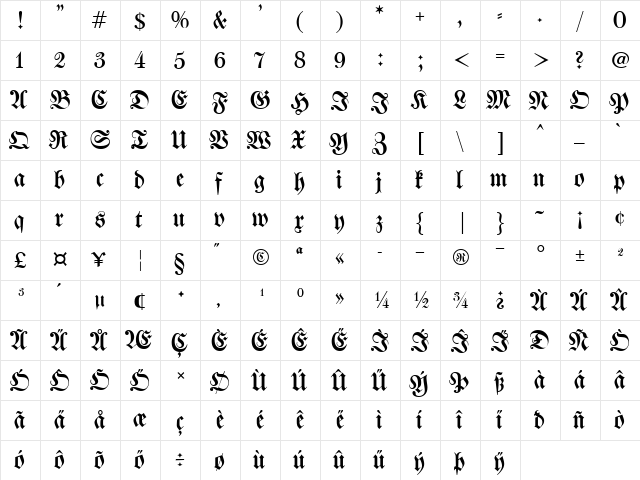
Walbaum-Fraktur UNZ1 Regular
| Designer | Dieter Steffmann |
Design Context for Walbaum-Fraktur UNZ1 Typeface
Walbaum-Fraktur UNZ1 draws on the rich tradition of blackletter calligraphy, with dense, angular strokes that evoke medieval manuscripts and old-world craftsmanship.
Well-suited to band logos, craft beer branding, tattoo lettering, and heritage-themed identities.
Font Pairing: Pair with a clean neutral sans-serif for body copy to let Walbaum-Fraktur UNZ1's character lead without overwhelming the composition.
Pro Tip: Use Walbaum-Fraktur UNZ1 sparingly at large sizes. Even a single word set in blackletter can define the visual register of an entire design.